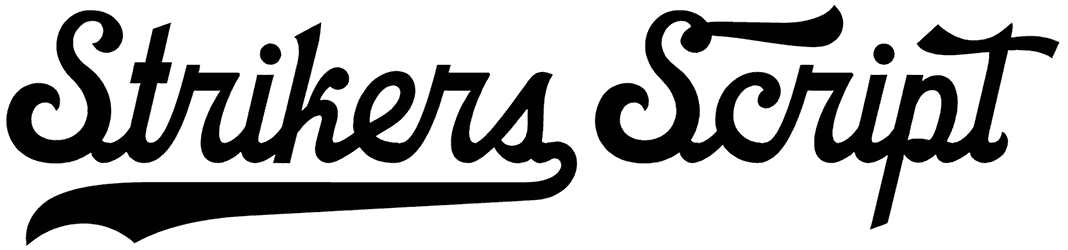
Strikers Script Font
Introducing Strikers Script, an authentic old school font that includes three different versions and two weights with a vintage feel. It has bold, well-balanced characters without numerals, which give off a strong, energetic touch. This baseball font would be great for book covers, apparel prints, movie posters, advertising aims, or any retro designs.
Example: <hello>Use underscore _ to make a swash.
Example: Letter_
Use multiple underscores to make longer swashes.